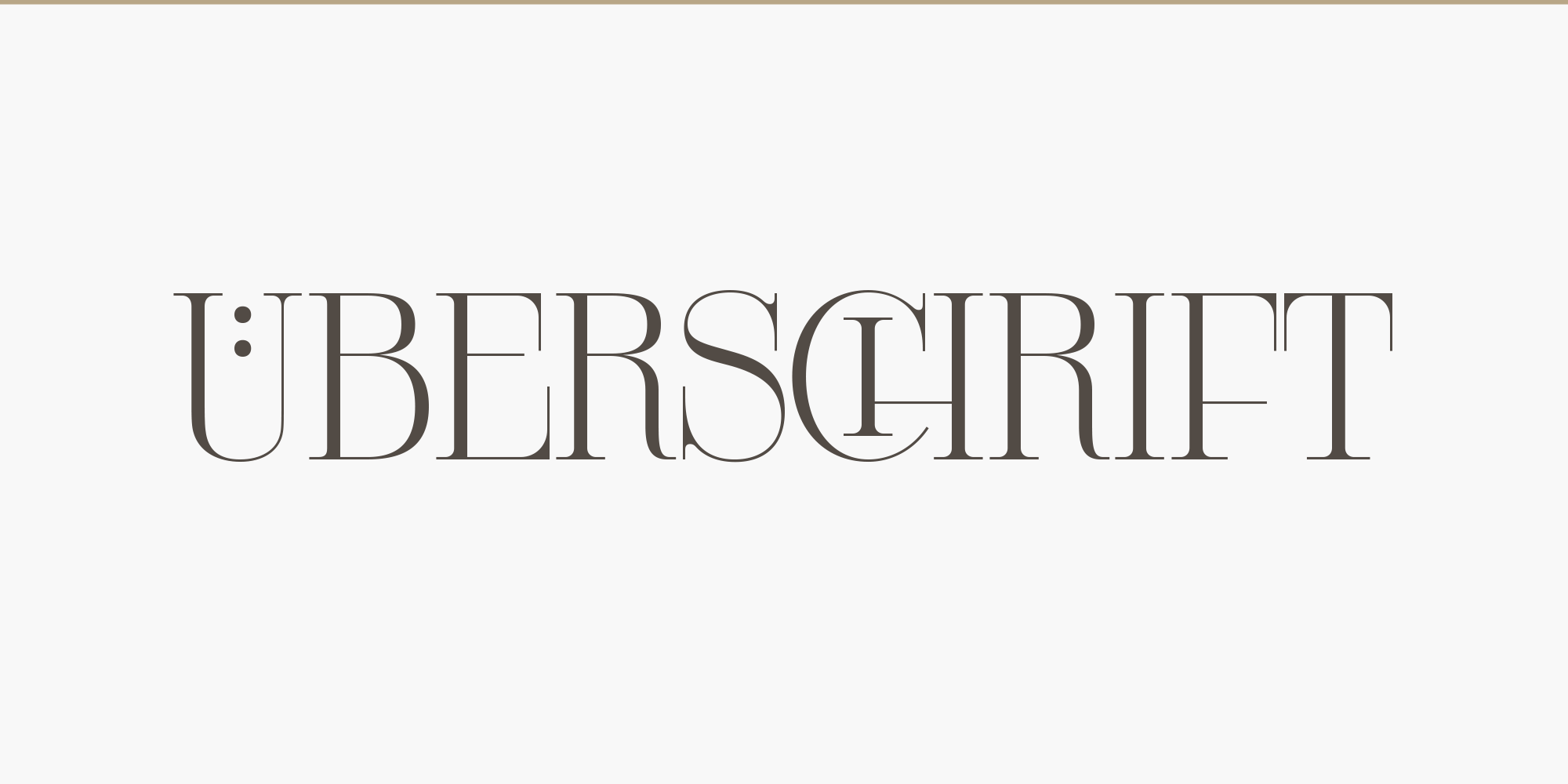
Uberschrift Font is perfect for newspaper headlines, magazine mastheads, book titles, editorial layouts, academic publications, corporate reports, formal presentations, government documents, legal briefs, and professional documentation. This authoritative typeface brings commanding presence and institutional credibility to any serious publishing or communication project.
Uberschrift Font is exciting because it embodies the power and authority of traditional European typography while maintaining perfect readability at any size. Its robust letterforms and classical proportions command attention and respect, making it ideal for content that needs to establish immediate credibility and professional gravitas with readers.
Uberschrift Font family includes multiple weights and styles: Regular, Bold, Light, Medium, Black, Condensed, Extended, Italic, Small Caps, and Display variants. Each style maintains the distinctive authoritative character while providing comprehensive typographic options for complex editorial hierarchies and formal document structures.
Whether you're designing for publishing houses, news organizations, or corporate communications, Uberschrift Font Free Download delivers the gravitas and professionalism that serious content demands. This distinguished typeface combines traditional typographic excellence with contemporary functionality, making it essential for projects requiring both authority and accessibility. The font's commanding presence and reliable performance ensure maximum impact in editorial and corporate environments.